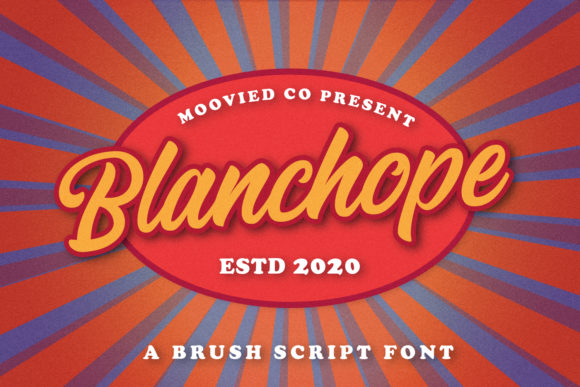
Discover the Elegance of Blanchope Font: A Timeless Script Font for Your Design Projects
Are you a designer or crafter looking for a font that exudes elegance and sophistication? Look no further than Blanchope Font. This beautiful script font is inspired by classic typography and brings its own unique style to any design project. In this article, we’ll explore the features and benefits of Blanchope Font, and why it’s a great addition to your typography collection.
What is Blanchope Font?
Blanchope Font is a stunning script font that is perfect for adding a touch of elegance to your design projects. Its classic inspiration and unique style make it an excellent choice for a wide range of applications, from branding and advertising to packaging and digital media. Whether you’re looking to create a bold headline or add some flair to your body text, Blanchope Font is sure to impress.
Key Features of Blanchope Font
- Unique Style: Blanchope Font boasts a distinctive style that sets it apart from other script fonts. Its elegant lines and curves make it perfect for adding a touch of sophistication to your designs.
- Classic Inspiration: Inspired by classic typography, Blanchope Font brings a sense of timelessness to your designs. Its traditional feel makes it perfect for projects that require a vintage or retro look.
- Versatility: Blanchope Font is incredibly versatile and can be used in a wide range of design projects, from print to digital media.
Benefits of Using Blanchope Font
So, why should you choose Blanchope Font for your design projects? Here are just a few benefits:
- Adds Elegance: Blanchope Font adds a touch of elegance and sophistication to your designs, making them stand out from the crowd.
- Enhances Readability: Blanchope Font is highly readable, even in small sizes, making it perfect for body text and captions.
- Unique Look: Blanchope Font’s unique style ensures that your designs will have a distinctive look that sets them apart from others.
- Time-Saving: With Blanchope Font, you can create professional-looking designs quickly and easily, saving you time and effort.
How to Use Blanchope Font in Your Design Projects
Using Blanchope Font in your design projects is easy. Here are a few tips to get you started:
- Headlines: Use Blanchope Font as a headline font to add a touch of elegance and sophistication to your designs.
- Body Text: Use Blanchope Font as a body text font to add a touch of elegance and refinement to your text.
- Pairing: Pair Blanchope Font with other fonts to create a unique and visually appealing design.
Tips and Tricks for Getting the Most Out of Blanchope Font
Here are a few tips and tricks to help you get the most out of Blanchope Font:
- Experiment with Sizes: Experiment with different font sizes to find the perfect balance for your design.
- Play with Colors: Play with different colors to find the perfect match for your design.
- Use it Sparingly: Use Blanchope Font sparingly to create a bold and eye-catching design.
In conclusion, Blanchope Font is a beautiful script font that is perfect for designers and crafters looking to add a touch of elegance and sophistication to their design projects. Its unique style, classic inspiration, and versatility make it an excellent choice for a wide range of applications. Whether you’re looking to create a bold headline or add some flair to your body text, Blanchope Font is sure to impress. So why not give it a try and see the difference it can make in your designs?